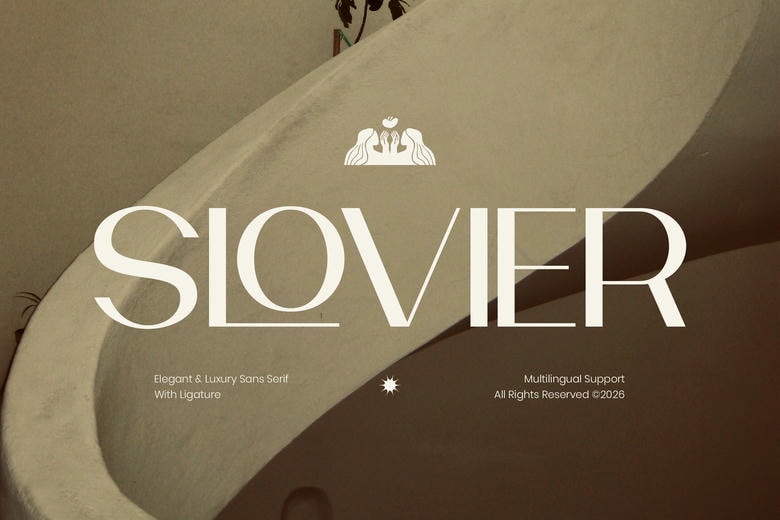
Slovier Font
Slovier is a modern luxury sans serif typeface that combines clean simplicity with timeless elegance. Its balanced proportions and smooth curves give any creative project a polished, high-end feel. With its minimalist style and flexible design, Slovier works well for bold headlines.
Slovier Sans Serif Font